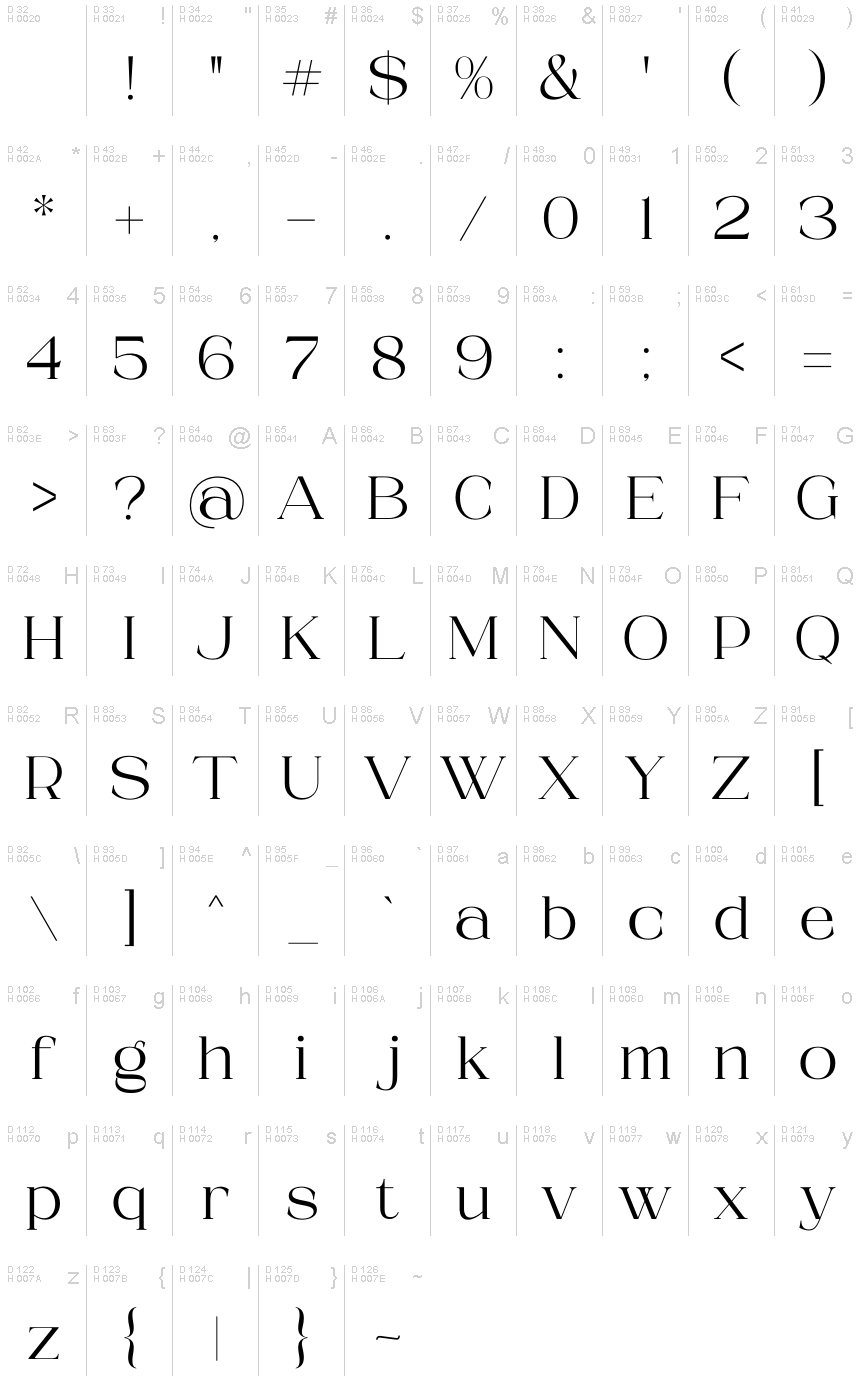
Roghiska
The Roghiska serif font exudes a timeless elegance and refined sophistication. Crafted with meticulous attention to detail, its smooth curves and delicate strokes create a harmonious balance, evoking a sense of classical charm. The font's distinctive personality shines through in its subtle variations, seamlessly blending tradition and modernity. Roghiska's versatile nature allows it to seamlessly adapt to a wide range of design applications, from elegant editorial layouts to sophisticated branding initiatives.
This versatile serif font from Storytype Studio can elevate a variety of projects, from high-end editorial designs to captivating branding campaigns. Its timeless appeal and versatile nature make Roghiska an excellent choice for designers seeking to infuse their work with a touch of timeless elegance and refined sophistication.